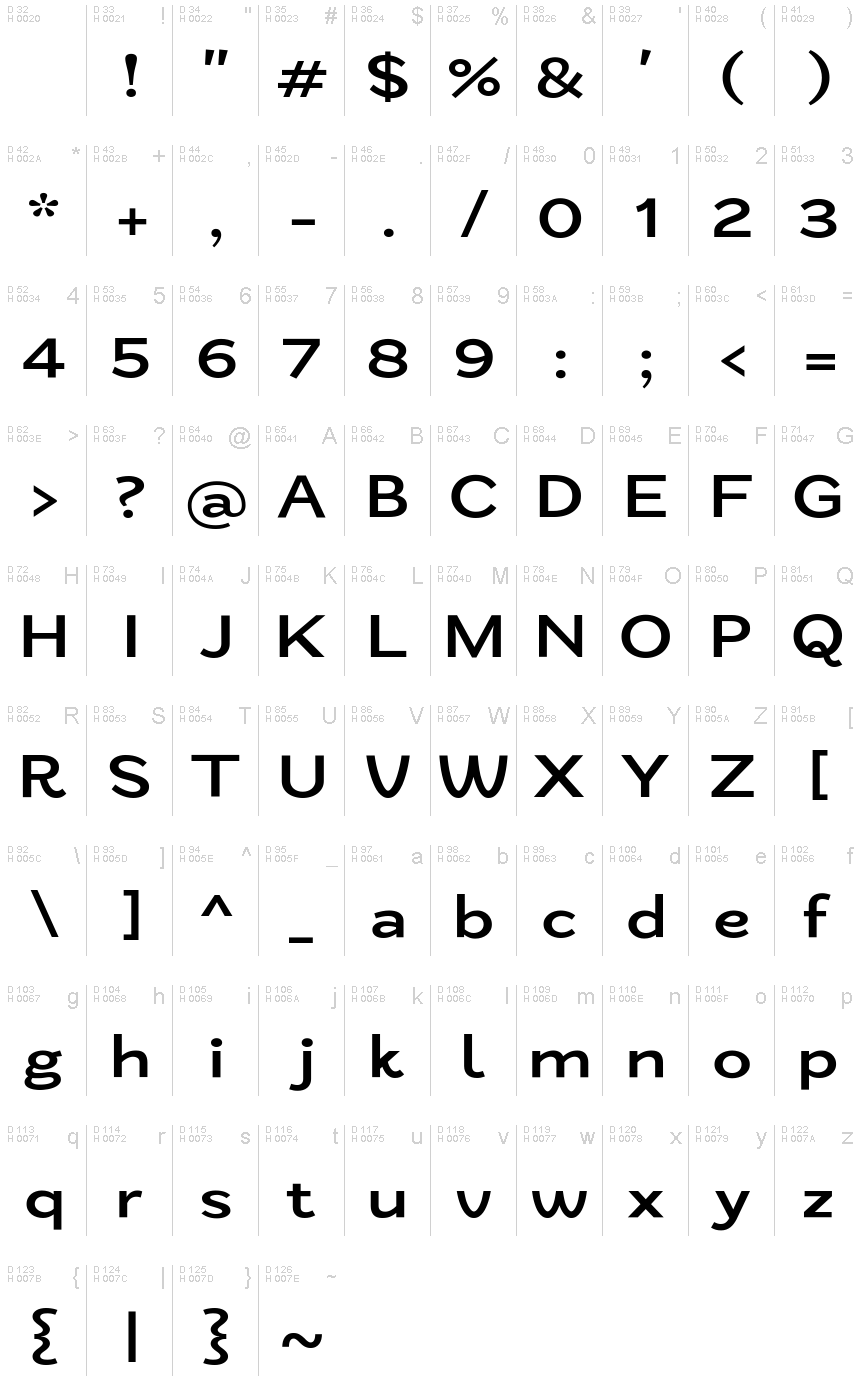
Zt Nezto DEMO Semi Bold
Zt Nezto is a captivating sans-serif font designed by Khaiuns. Featuring an expanded, curved structure, this typeface exudes elegance and refinement. The distinctive design approach, which aimed to overcome the challenges of combining 'W&V' letters, has resulted in a harmonious and unified aesthetic across the entire character set. Zt Nezto's alluring style invokes a sense of sophistication and contemporary flair, making it a standout choice for a variety of design applications.
The versatile nature of Zt Nezto allows it to seamlessly integrate into diverse projects, from high-end branding initiatives to impactful editorial layouts. Its expanded width and refined curves lend themselves beautifully to eye-catching headlines, while the font's legibility and versatility make it an excellent selection for body text and information-driven content. Zt Nezto's unique personality and adaptability ensure it can elevate the visual appeal of any design, making it a valuable addition to the creative professional's toolkit.